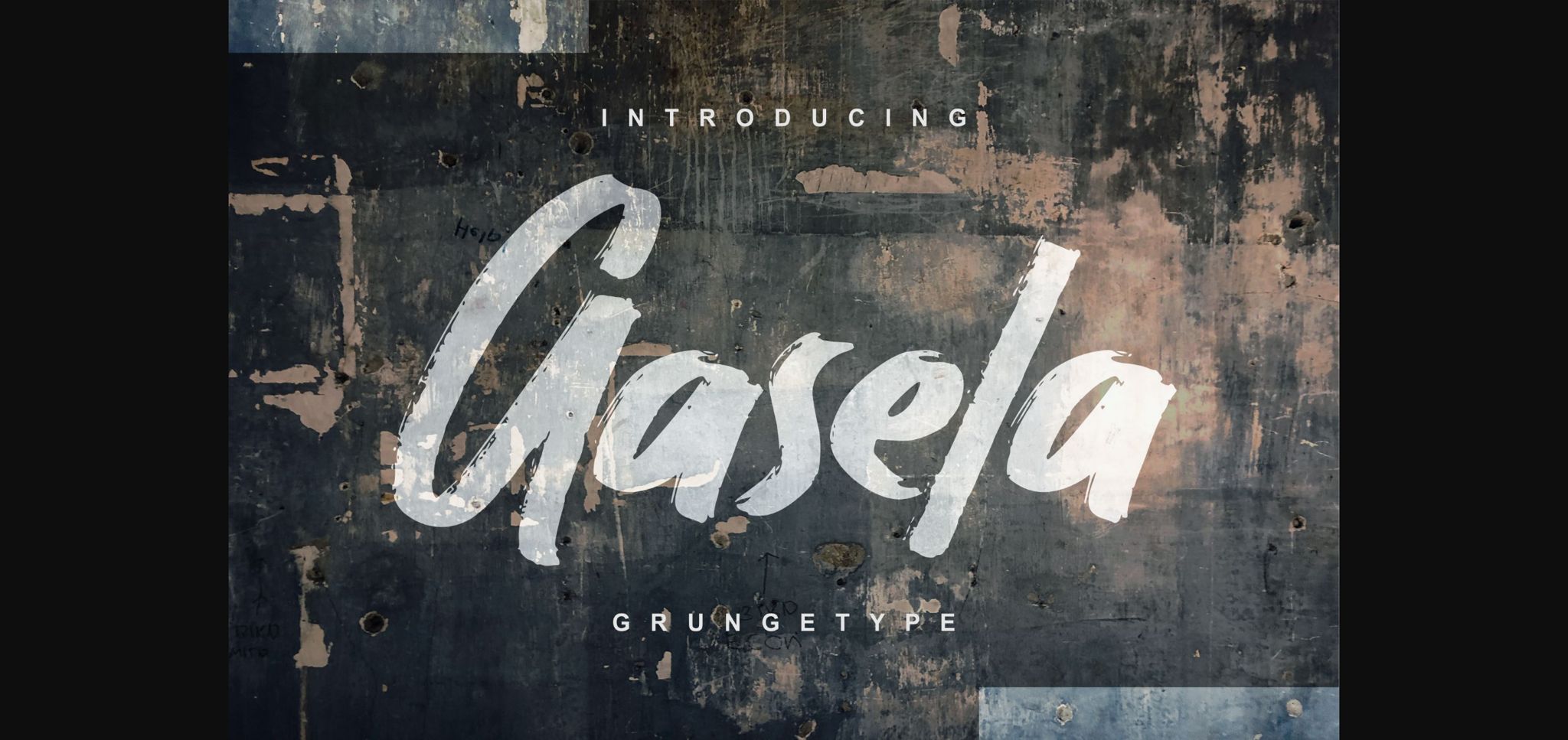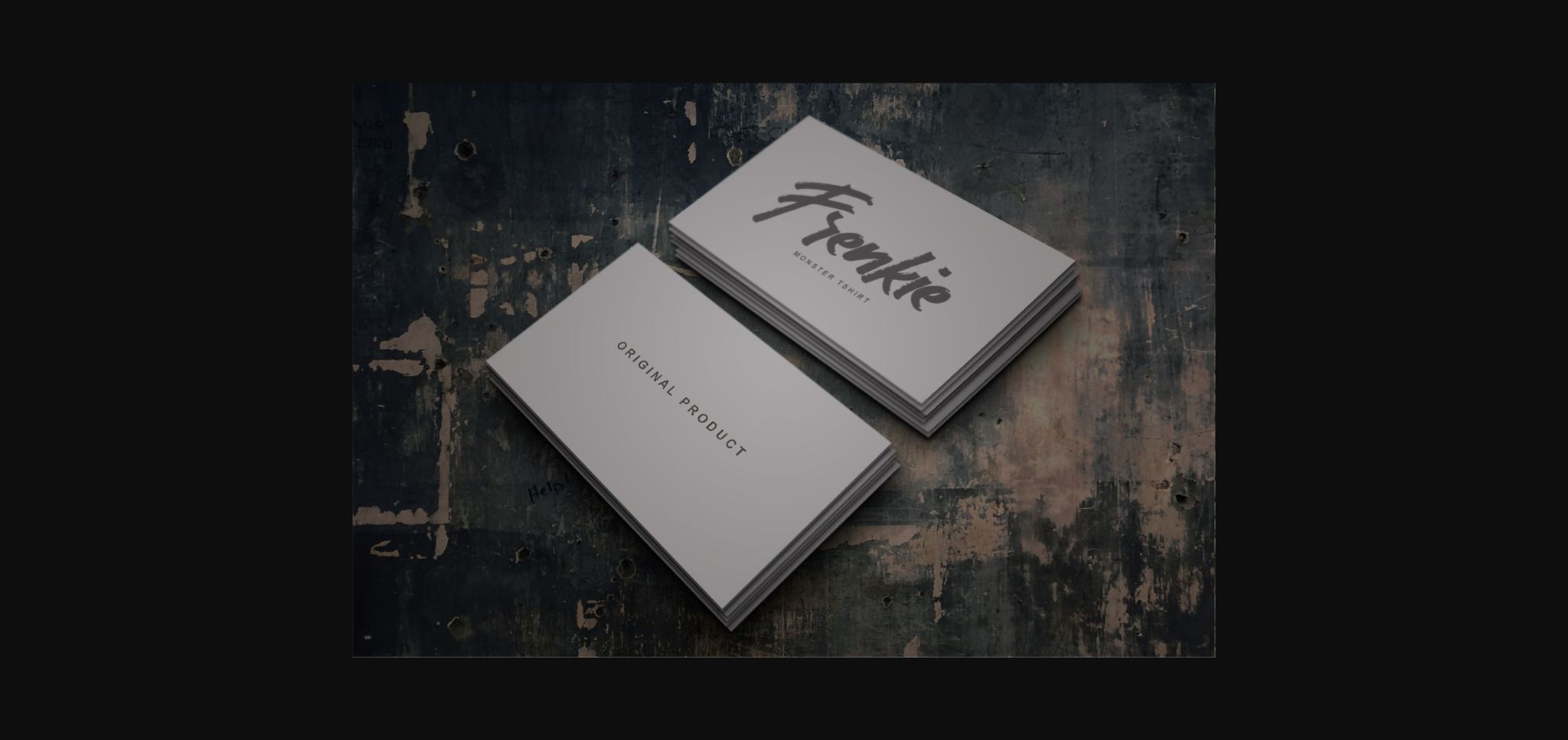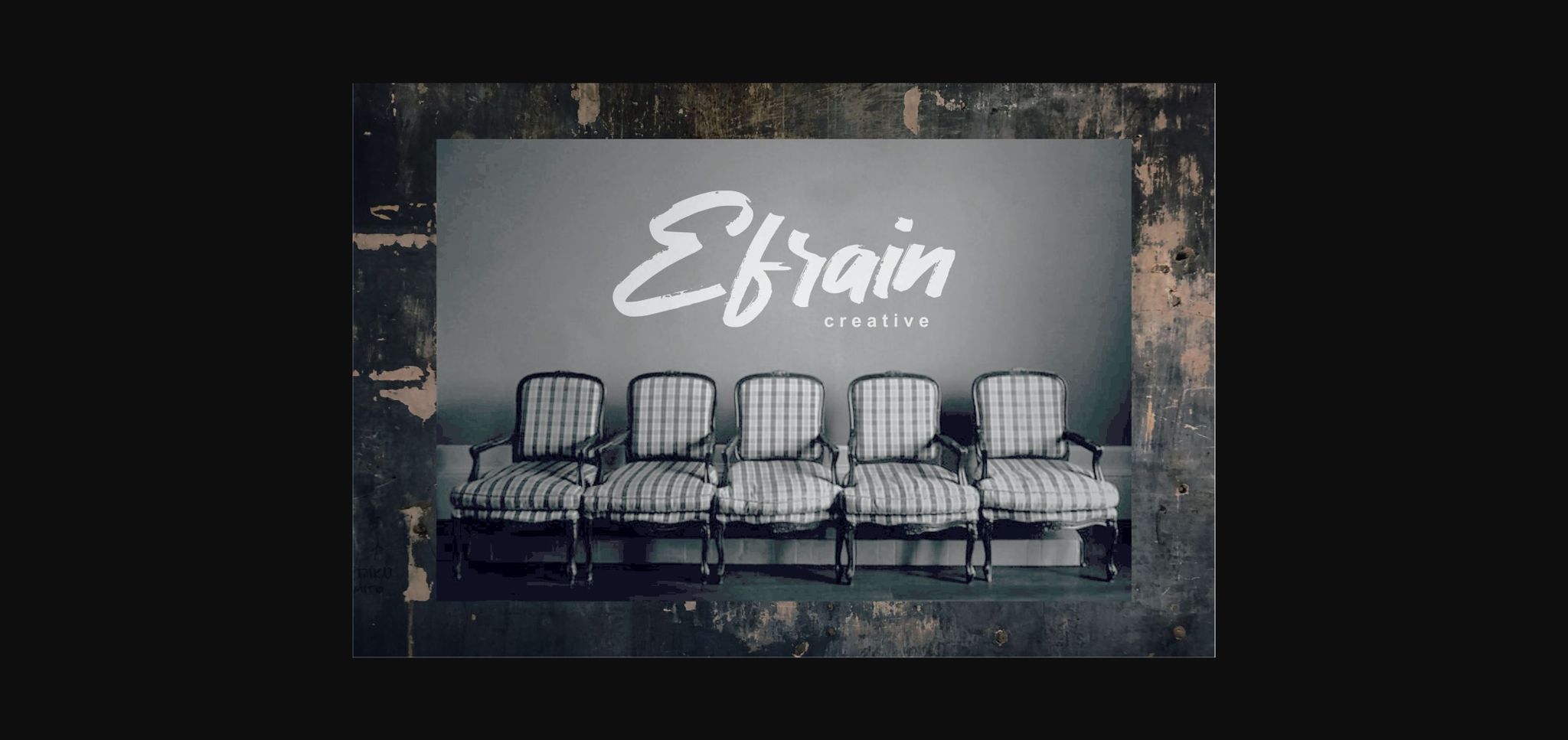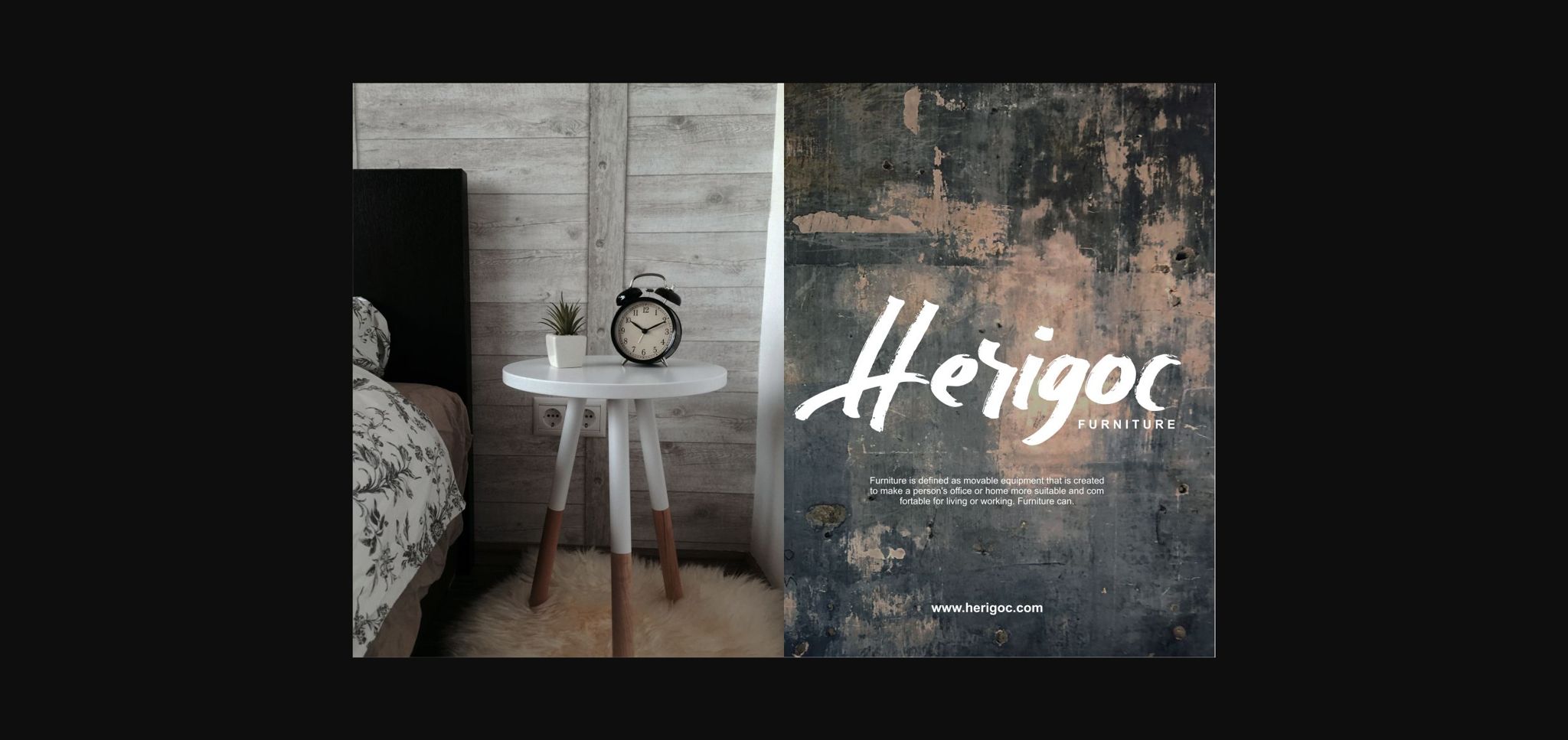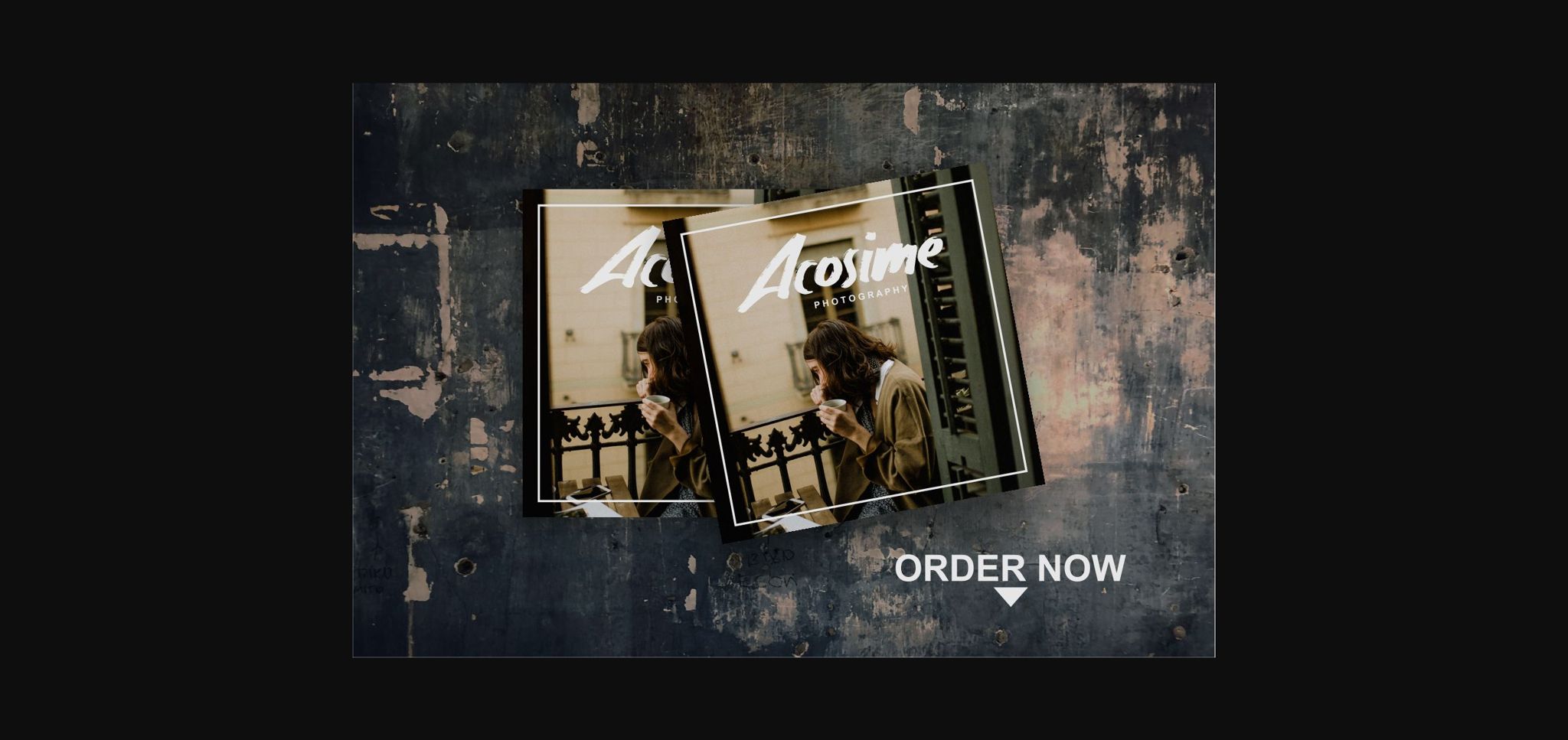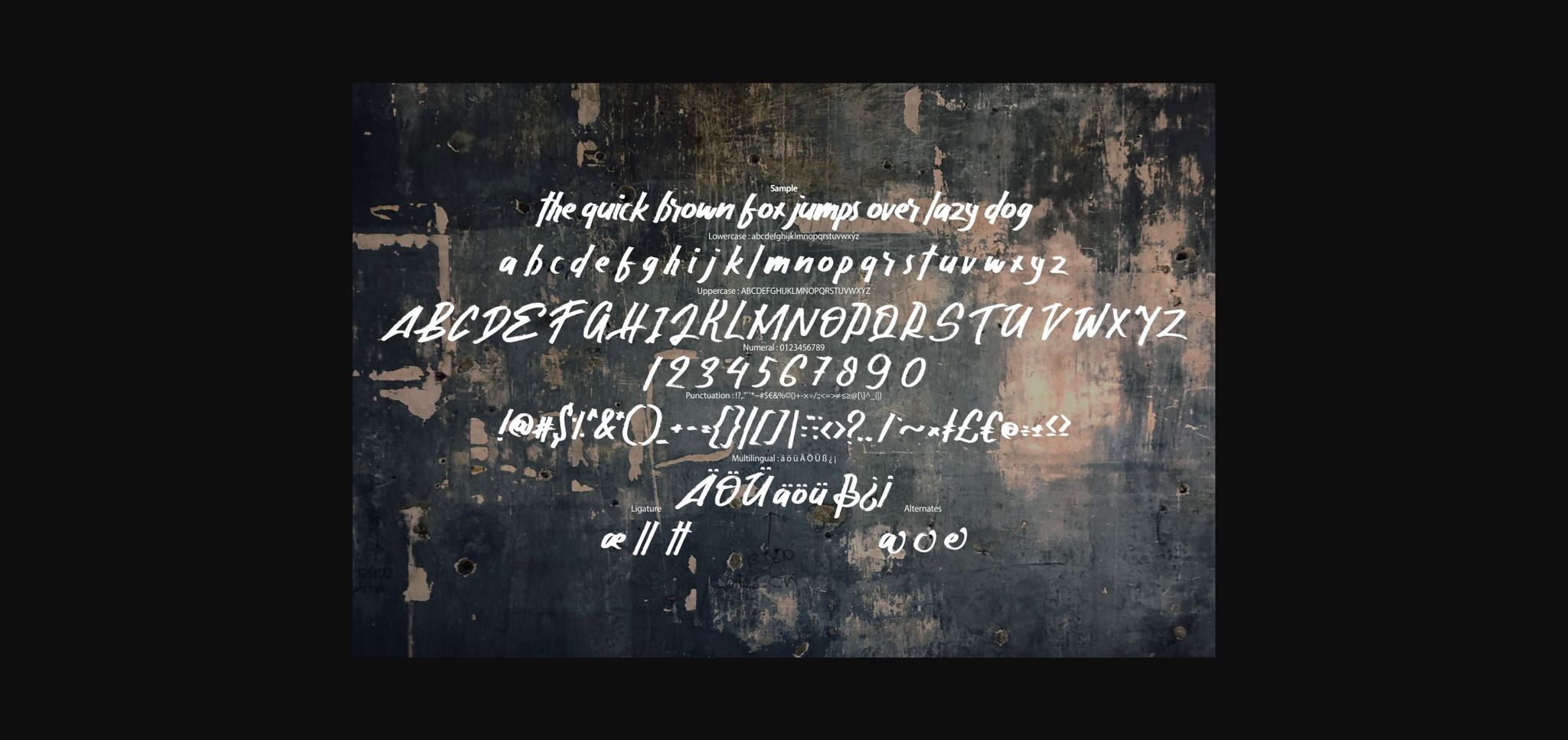
HomeSans Serif FontsGasela Font Sans Serif Fonts Gasela Font FacebookXPinterestWhatsApp 1 of 8 ... Gasela Font Poster 2... Gasela Font Poster 3... Gasela Font Poster 4... Gasela Font Poster 5... Gasela Font Poster 6... Gasela Font Poster 7... Gasela Font Poster 8... About Gasela Font Gasela is a casual, fun sans serif font, created by using a brush pen. Clean and a little bit quirky, this font is the perfect fit for all of your logos, branding, social media, and crafty DIY projects. DOWNLOAD NOW People also explored Sweet Bread Font Wedding Font Forever Friends Font Justhin Font White Coffee Mug Mockup with Golden Ball Flower Polaris Font Hey Morning Font Jahannam Balla Font Kids Whiteboard Font 311 0 TagsGaselaGasela Font Previous articleRadgrows FontNext articleBerryspickers Font LEAVE A REPLY Cancel reply Comment: Please enter your comment! Name:* Please enter your name here Email:* You have entered an incorrect email address! Please enter your email address here Website: Save my name, email, and website in this browser for the next time I comment. Personal Use Free Rhetorical Personal Use Free Read more about this font Lightning Script Personal Use Free Read more about this font Maharany Personal Use Free Read more about this font Penelope Brush Script Font Personal Use Free Read more about this font BLOG Free Fonts Risk: Why Free Fonts Can Be Dangerous for Designers Free Fonts Risk: Why Free Fonts Can Be Dangerous for Designers Using free fonts is a common practice in web and graphic design. However, the... Free vs Paid Fonts: Why Investing in Premium Fonts Is Worth It To increase your work productivity, choose the most readable fonts. Elegant Wedding Invitation Fonts – Handwritten & Script Fonts